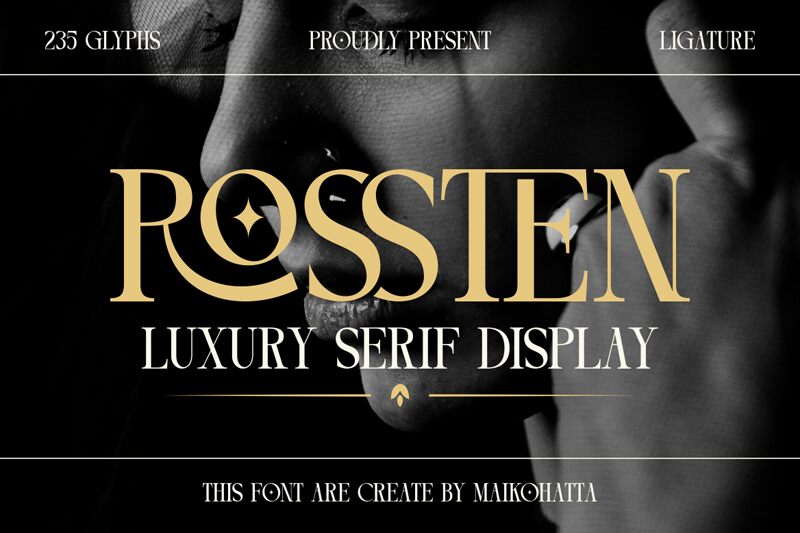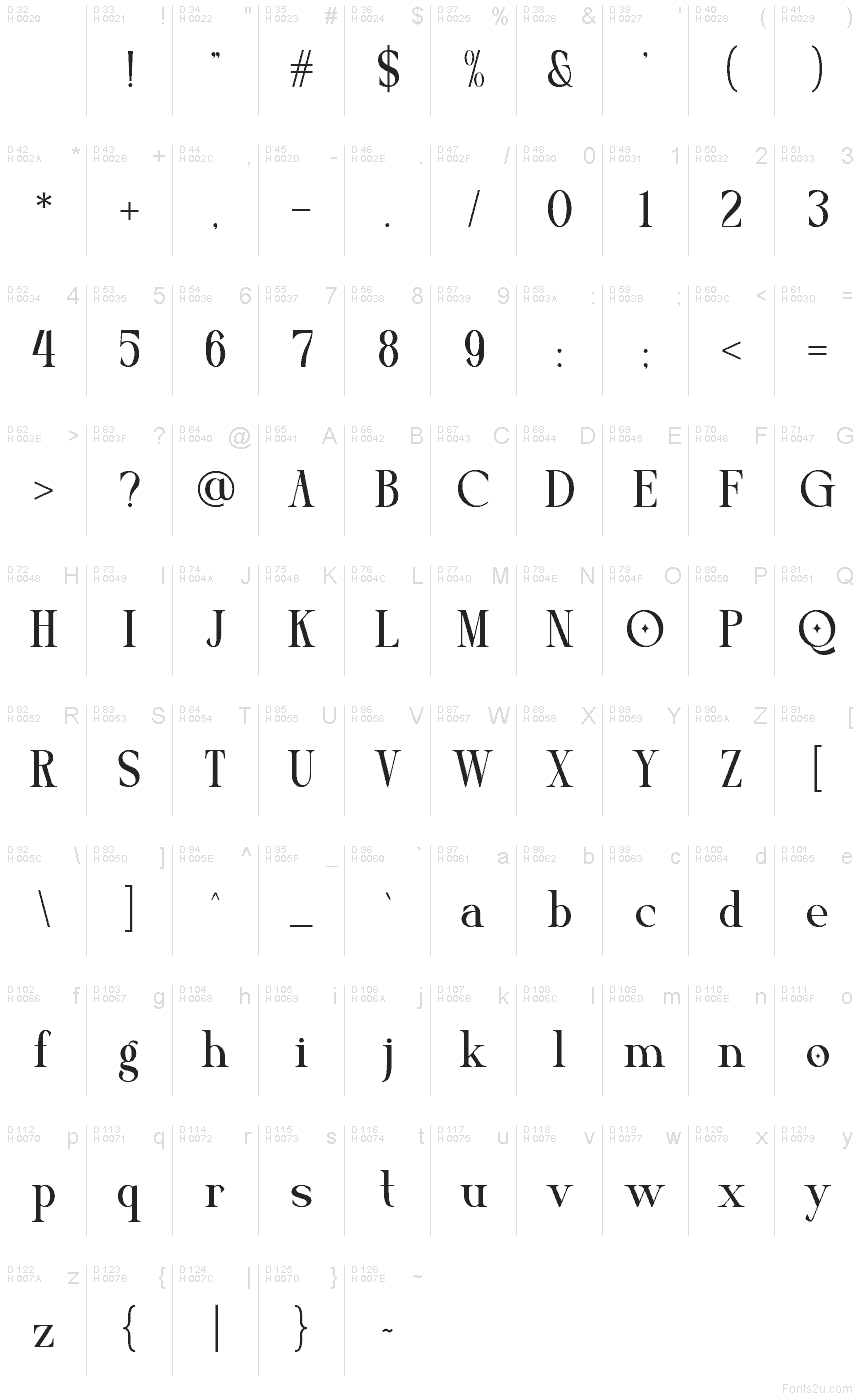
ROSSTEN
Rossten font by Gilang Ternadho is a free decorative serif typeface. Its signature move is unmistakable: a jeweled diamond glint nestled in round forms, set against sculpted thicks and thins and knife‑clean serifs. The letters feel cut from glossy lacquer—sleek, assertive, and a little theatrical—so a single word can read like a mark.
Using Rossten, headlines snap into focus for fashion branding, magazine mastheads, luxe packaging, event invitations, album covers, and bold posters. The spacing is tight and rhythmic, which helps logos lock up neatly and taglines carry weight. Pair this free font with a neutral grotesk for body copy, and set Rossten large with a touch of letterspacing to let those facets shine.